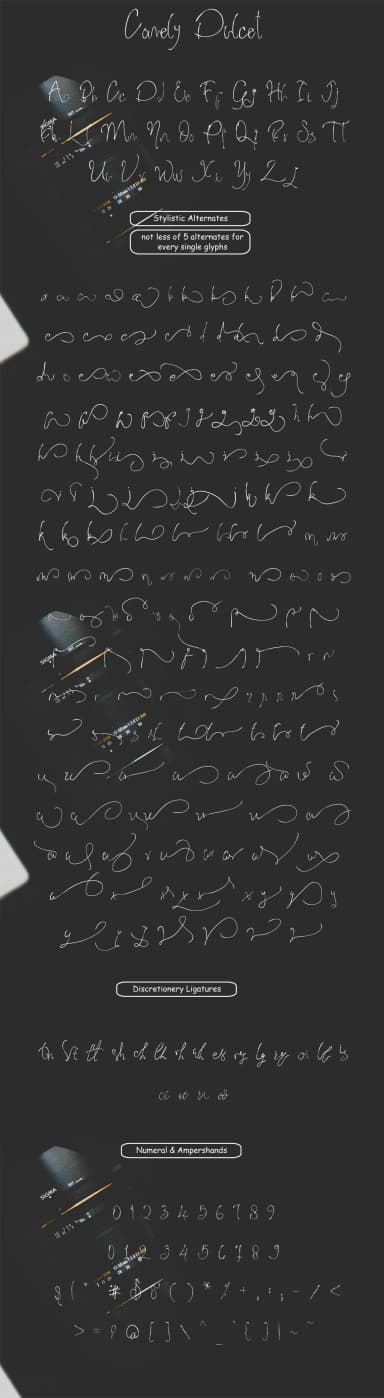
Comely Dulcet by Ajir is a delicate handmade script that brings understated elegance to typographic projects. The thin, flowing letterforms capture the authentic charm of personal penmanship while maintaining excellent clarity across diverse applications. This font excels at creating meaningful connections between brand and audience, making it particularly suited for wedding invitations and stationery, artisanal food packaging, personalized greeting card suites, and high-end boutique branding where genuine craftsmanship and authenticity matter most. The refined strokes render beautifully on custom gift labels, thank-you notes, and celebration announcements that demand tasteful sophistication.
Designers developing small-batch product lines, premium stationery systems, or independent brand identities will appreciate Comely Dulcet's delicate yet versatile construction throughout their projects. The script's refined proportions maintain strong legibility at smaller sizes, enabling flexible use across both print and digital contexts without losing its distinctive character. From luxury candle labels and custom invitation sets to personalized business stationery and specialty artisan goods packaging, this font delivers authentic handwritten warmth while preserving professional polish and visual impact. Its thin weight brings an understated elegance that suits both minimalist aesthetic designs and richly detailed, ornamental layouts with equal grace.
Comely Dulcet Font is a script font that shines as a display or heading face. Pair it with a clean sans-serif or serif font for body text — the contrast creates a clear hierarchy while the two styles stay balanced and easy to read.